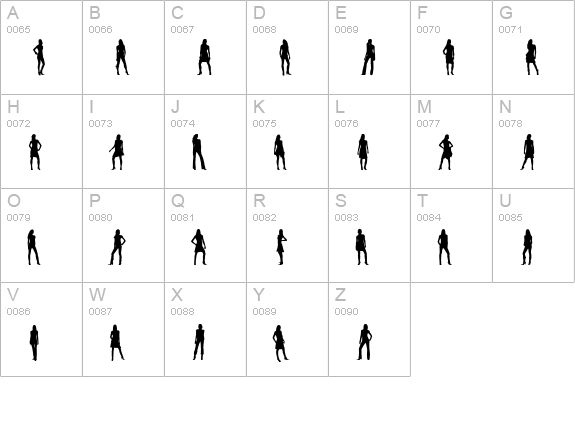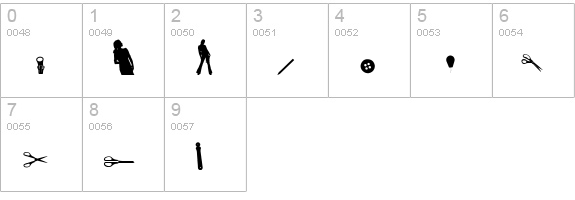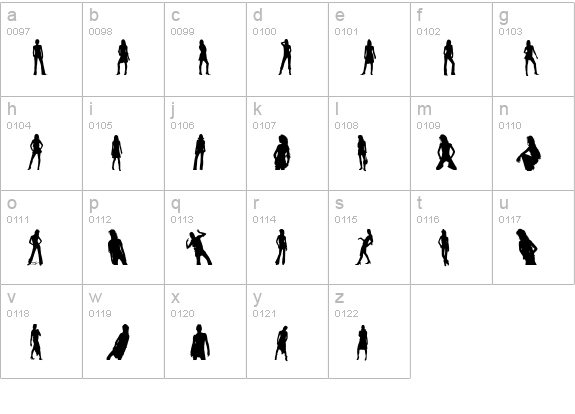
Subeve Font Details
Subeve font is a stylish and modern typeface that exudes elegance and sophistication. With its sleek lines and clean design, Subeve is perfect for a wide range of design projects, from branding to editorial layouts. This versatile font is sure to make your text stand out and leave a lasting impression on your audience. The best part? Subeve font is completely free to download at FontsMarket.com. Whether you're a designer looking to add a touch of class to your projects or a business owner wanting to enhance your brand identity, Subeve font is the perfect choice. Don't miss out on the opportunity to elevate your designs with this stunning typeface. Download Subeve font today and take your creations to the next level.